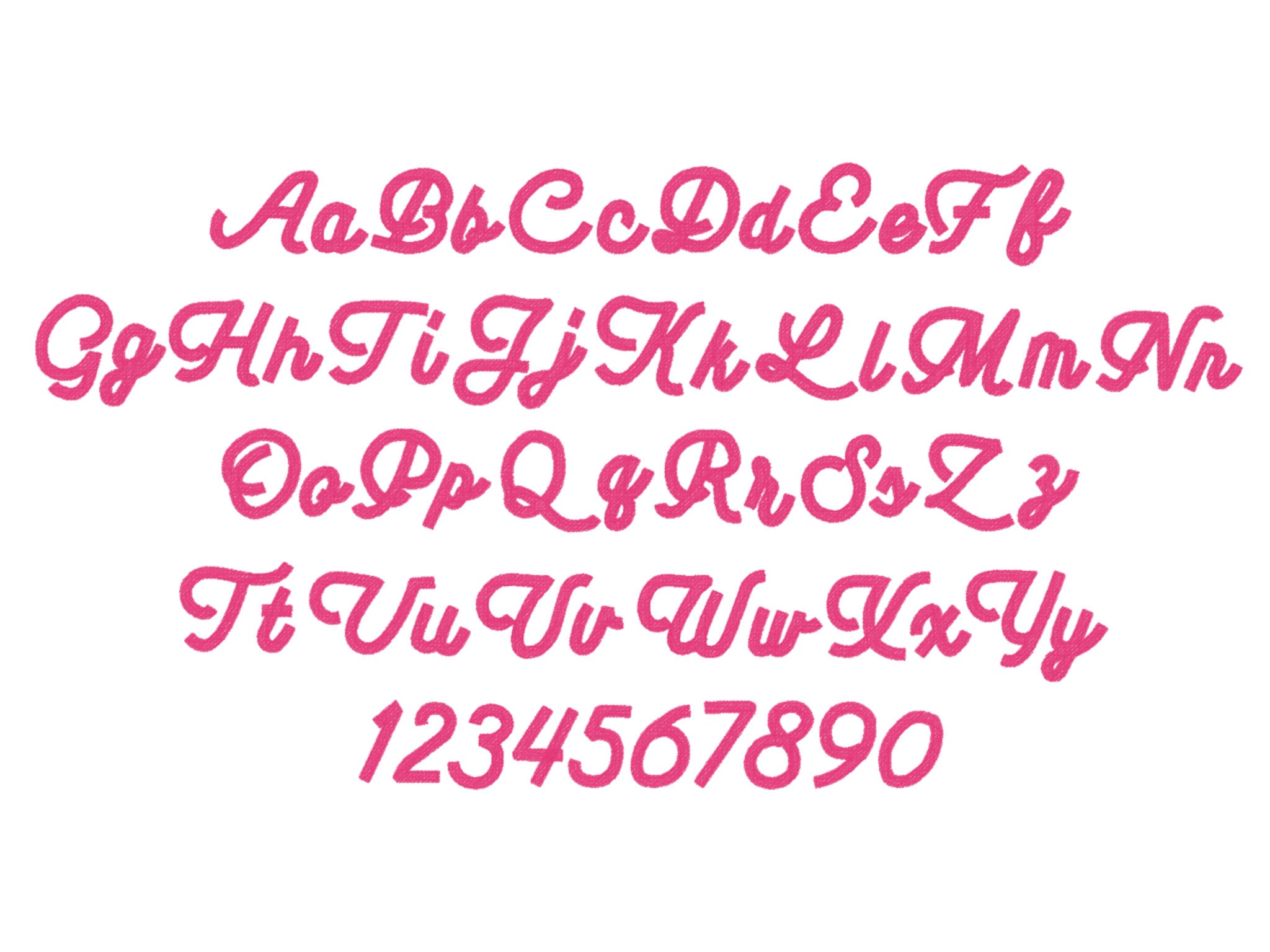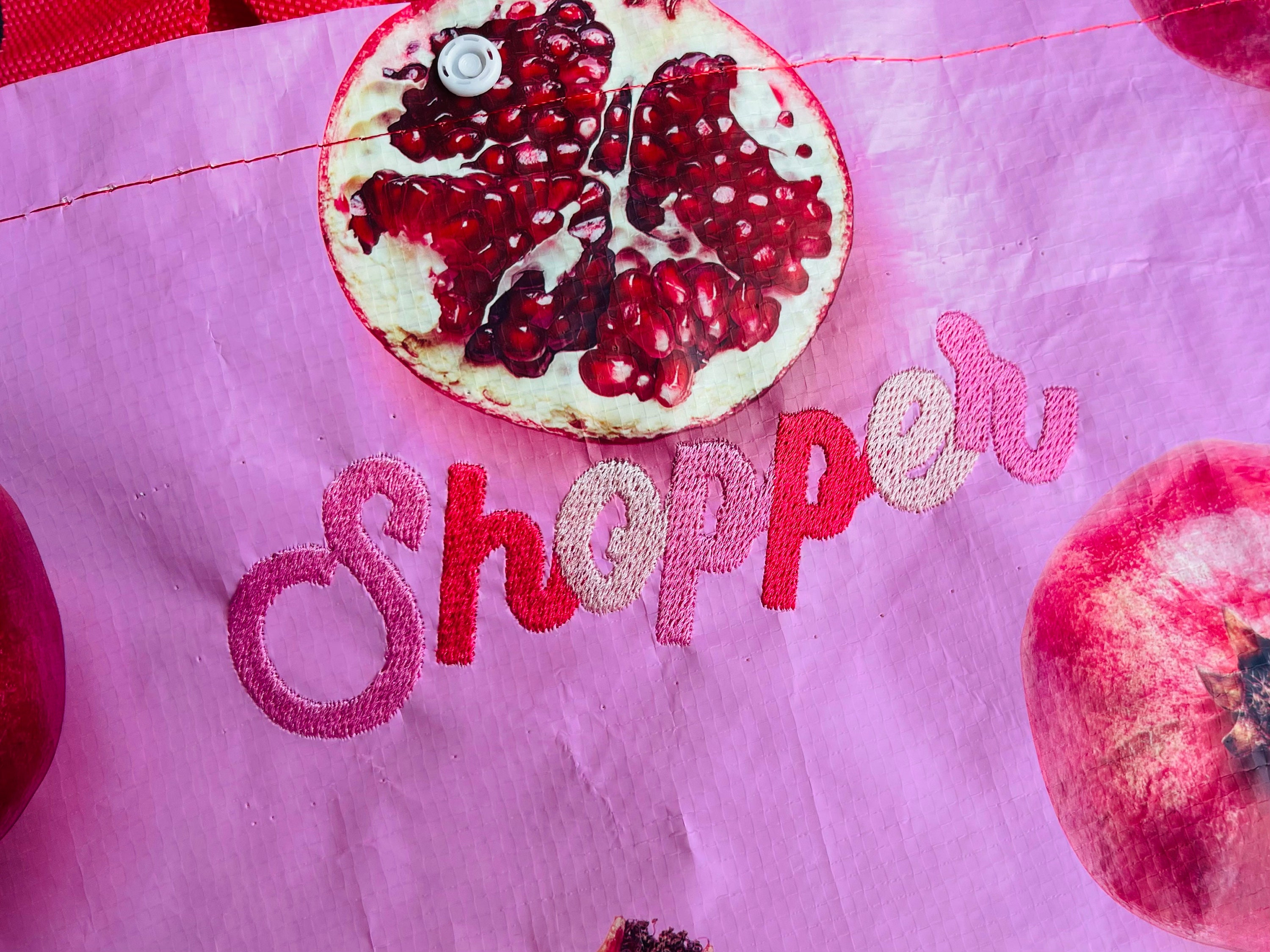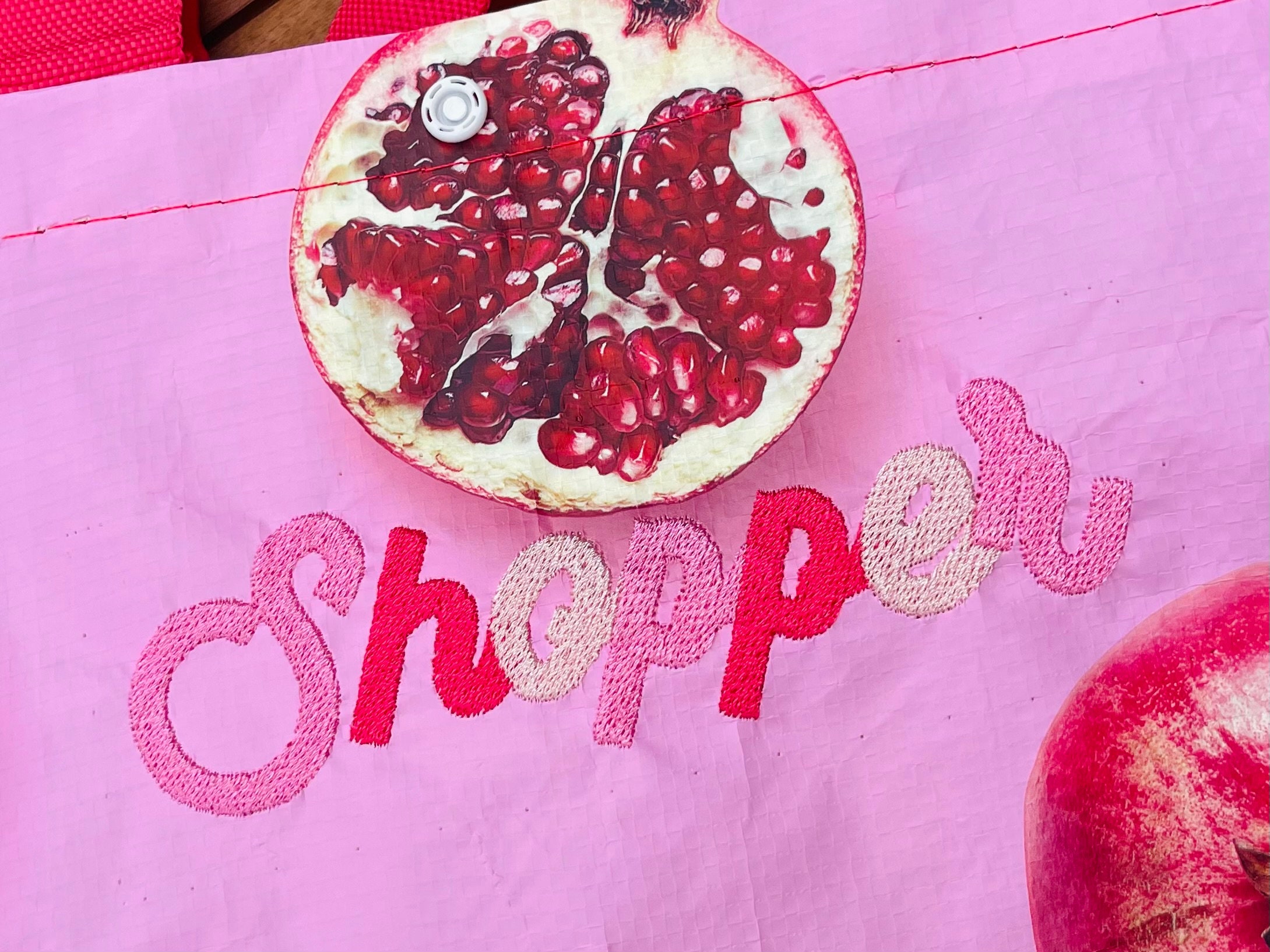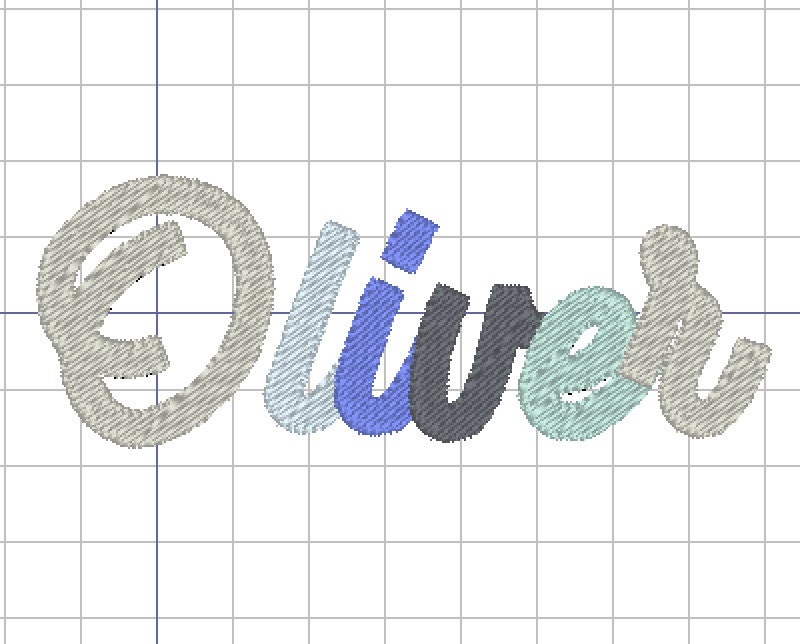
Fill stitch Font 1" 1.5" 2" 2.5" alphabet playful kids baby monogram name, machine embroidery design font, BX incl
Whole alphabet A-Z uppercase and lowercase letters, and numbers.